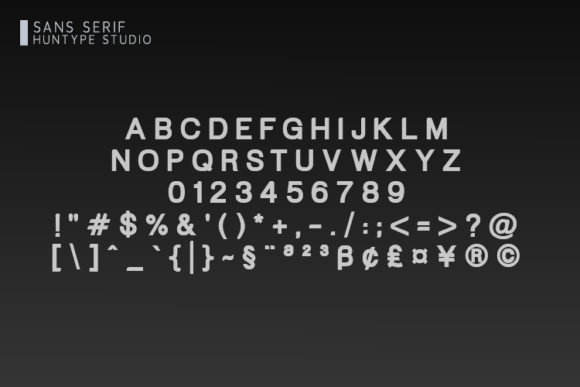
Candya Font: Elevate Your Design with a Unique Sans Serif Style
In the world of typography, fonts play a crucial role in making or breaking a design. A well-chosen font can elevate your project, making it stand out from the crowd, while a poorly chosen one can have the opposite effect. If you’re a designer or crafter looking for a font that combines classic typography with a unique twist, look no further than Candya Font. In this article, we’ll explore the features and benefits of Candya, and why it’s an excellent choice for your next design project.
What is Candya Font?
Candya Font is a sans serif font that draws inspiration from classic typography while bringing its own distinct style to the table. Its clean lines, elegant curves, and versatile design make it an excellent choice for a wide range of applications, from web and print to moving images and more.
Key Features of Candya Font
- Unique Style: Candya’s design is rooted in classic typography, but it has a unique twist that sets it apart from more traditional fonts.
- Sans Serif: The font’s sans serif design makes it highly legible, even at small sizes.
- Versatile: Candya is suitable for headlines, blocks of text, and everything in between.
- Highly Adaptable: The font works well in a variety of contexts, including web, print, moving images, and more.
Why Choose Candya Font?
So, why should you choose Candya Font for your next design project? Here are just a few compelling reasons:
- Elevate Your Headlines: Candya’s elegant design makes it perfect for headlines of all sizes. Whether you’re creating a poster, a website, or a social media graphic, Candya is sure to make your headlines stand out.
- Perfect for Blocks of Text: While Candya excels at headlines, it’s also well-suited for blocks of text. Its clear, legible design ensures that your readers will stay engaged, even with large amounts of text.
- Maximum and Minimum Variations: Candya’s design takes into account the need for variation in text. Whether you’re working with a single word or a long paragraph, Candya adjusts beautifully to fit your needs.
Using Candya Font in Your Design Projects
Now that we’ve covered the benefits of Candya Font, let’s talk about how to use it in your design projects. Here are a few tips to get you started:
- Experiment with Sizes: Candya works well at a variety of sizes, so don’t be afraid to experiment. Try it out in headlines, subheadings, and body text to see what works best for your project.
- Play with Colors: The font’s clean design makes it a great choice for use with a wide range of colors. Try pairing it with bold, bright colors for a statement look, or with more muted tones for a subtle effect.
- Mix and Match: Candya is a versatile font that works well on its own or paired with other fonts. Try combining it with a serif font for a classic look, or with another sans serif font for a modern feel.
In conclusion, Candya Font is an excellent choice for designers and crafters looking for a unique sans serif font that brings a touch of classic typography to their projects. Its elegant design, versatility, and adaptability make it perfect for a wide range of applications, from web and print to moving images and more. Whether you’re creating headlines, blocks of text, or anything in between, Candya is sure to elevate your design and make it stand out from the crowd.
Get Ready to Elevate Your Design with Candya Font